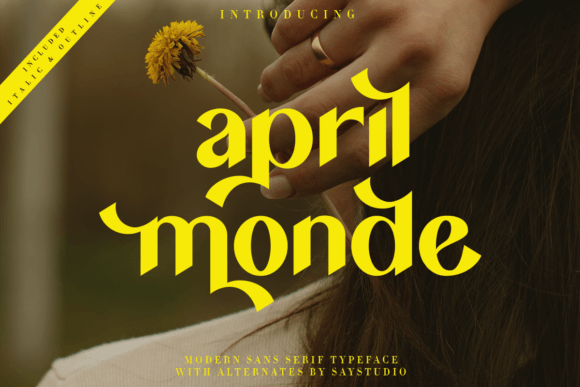
The Designer’s Delight: April Monde Font
April Monde is a stunning modern sans-serif typeface that comes in regular, italic, and outline styles. Its sleek design and unique aesthetic make it perfect for grabbing the attention of your target audience. In this article, I’ll share my honest review of the font, provide a practical guide on how to use it, and explore some similar alternatives.
So, what makes April Monde font so special? Here are some things I love about it:
• ✨ Elegant and modern design: April Monde has a sleek, contemporary look that’s perfect for branding materials, signs, invitations, and more.
• ✅ Versatile styles: The font comes in regular, italic, and outline styles, making it easy to mix and match to create a unique design.
• 💡 Attention-grabbing: The font’s distinctive design ensures it will stand out and grab the attention of your target audience.
While April Monde is an amazing font, it’s not without its quirks. Here are a few things to keep in mind:
• 🤔 Limited language support: April Monde primarily supports Latin-based languages, so if you need to work with non-Latin scripts, you might need to look elsewhere.
• ⚠️ Not ideal for body text: Due to its elegant, modern design, April Monde works best as a display font or for short blocks of text. It might not be the best choice for lengthy articles or paragraphs.
The Story Behind April Monde
April Monde was designed by a talented type designer who wanted to create a font that would capture the essence of modern elegance. Inspired by the beauty of simple shapes and clean lines, the designer crafted a font that’s both sophisticated and eye-catching.
What type of font is April Monde? April Monde is a modern sans-serif typeface with regular, italic, and outline styles.
Is April Monde suitable for body text? While it’s possible to use April Monde for short blocks of text, it’s primarily designed as a display font and works best for headlines, titles, and short paragraphs.
Does April Monde support multiple languages? April Monde primarily supports Latin-based languages. If you need to work with non-Latin scripts, you may want to explore other font options.